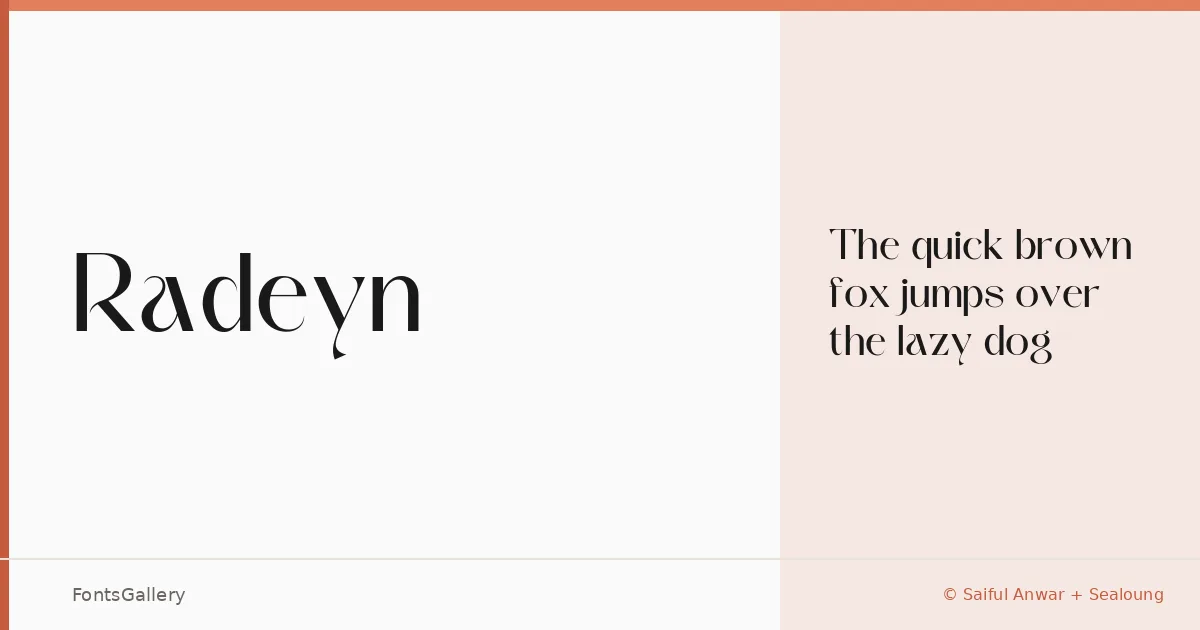
About Radeyn Font
There is a quiet confidence in the serifs here — the kind of refined stroke contrast and deliberate letterform shaping that signals a face built for occasions that matter. Created by Saiful Anwar and Sealoung, this is a single-cut Latin serif released in 2024 and constructed in FontCreator 15. The Regular weight is the whole offering, so what you see is the full commitment of the design.
The mood sits firmly in classic elegance with a modern clarity running underneath it — the sort of balance that reads as luxury without tipping into the ornate. As a TTF serif, the letterforms carry the kind of upright poise that suits composed, unhurried settings: a logotype set in generous tracking, a magazine headline given room to breathe, a wedding invitation where every character earns its place on the page.
Recommended Usage & Font Pairing Fonts
It earns its keep in branding, logo work, invitation cards, and editorial contexts where the writing demands a certain formality. The Latin character set covers the expected range for those applications. For pairings, it sits well alongside Helvetica or Aileron when you need a clean sans to carry body copy, and it plays naturally against script faces like Allura and Ballmain for ceremonial or wedding contexts; Abrade offers a more contemporary structural contrast if the brief calls for it.